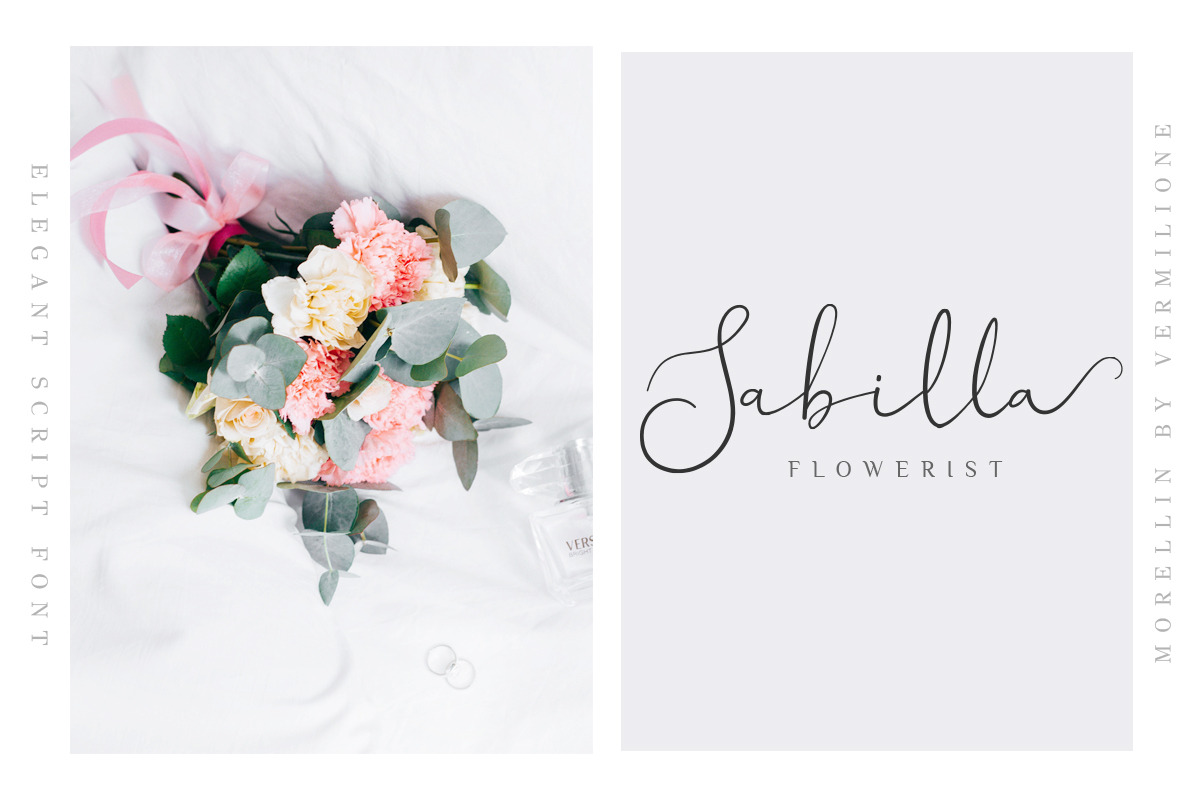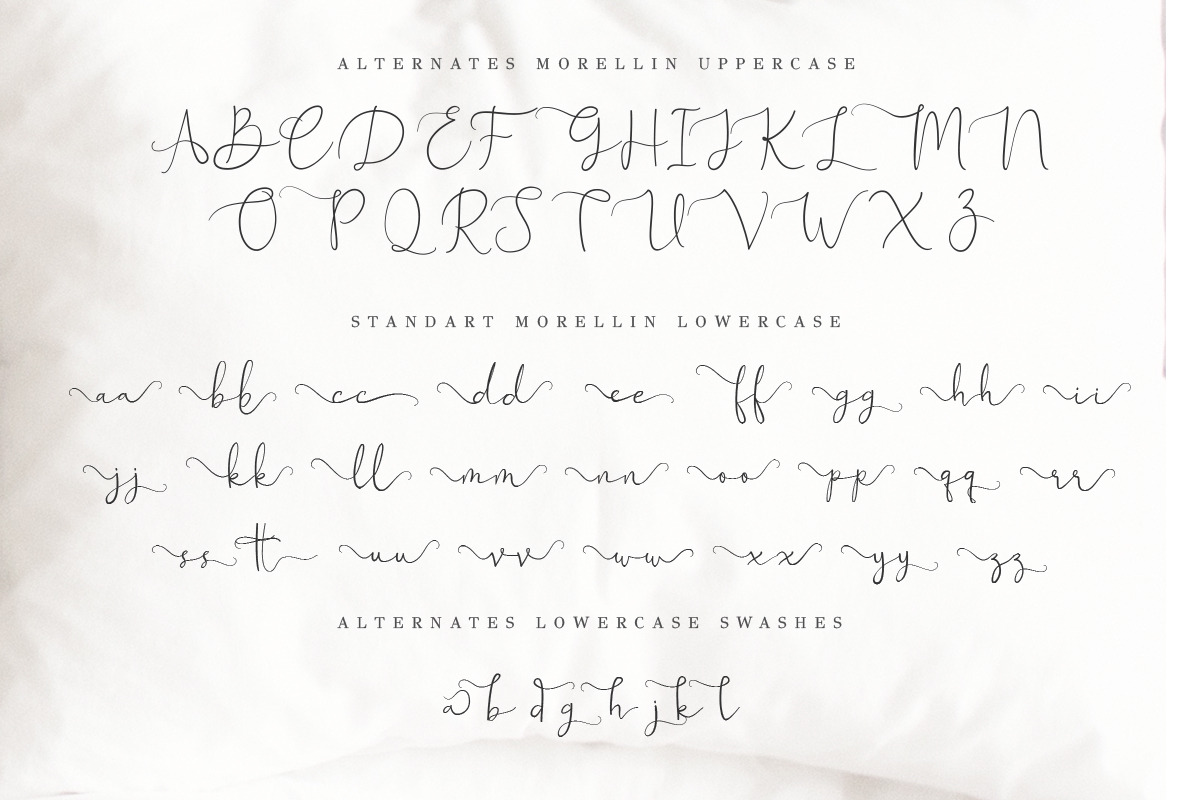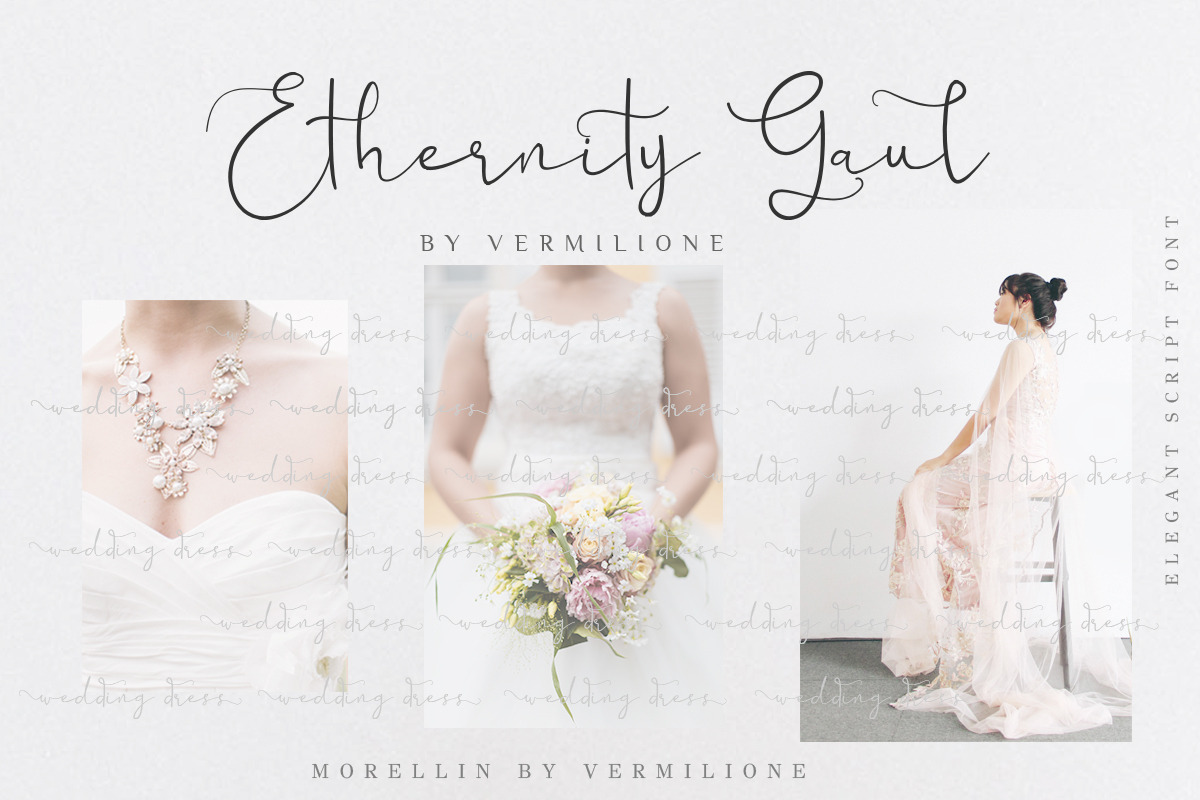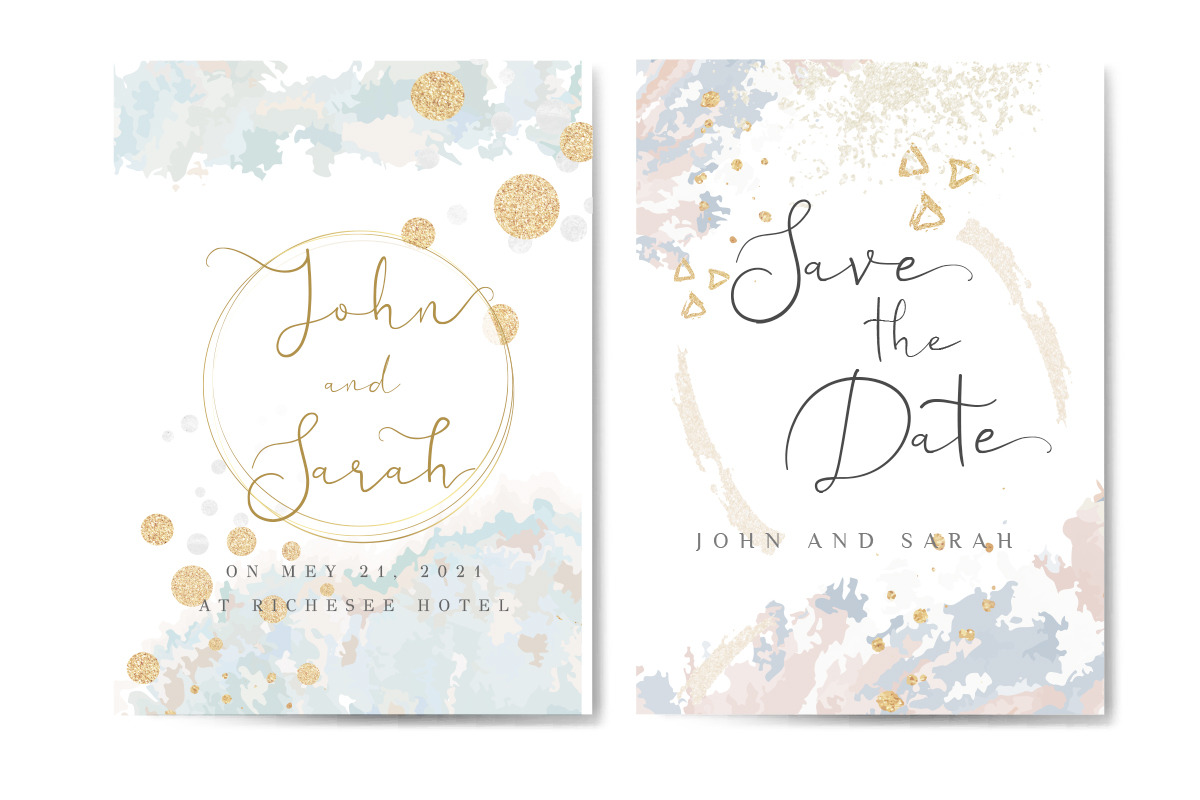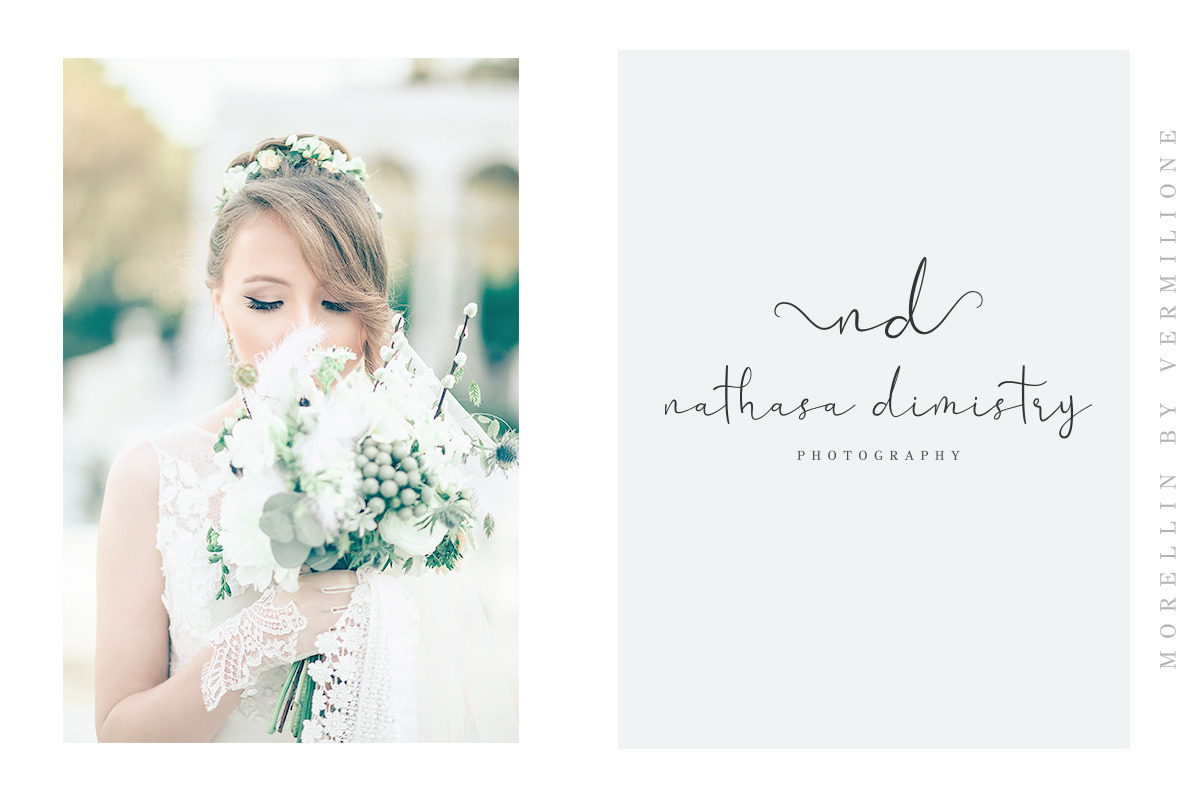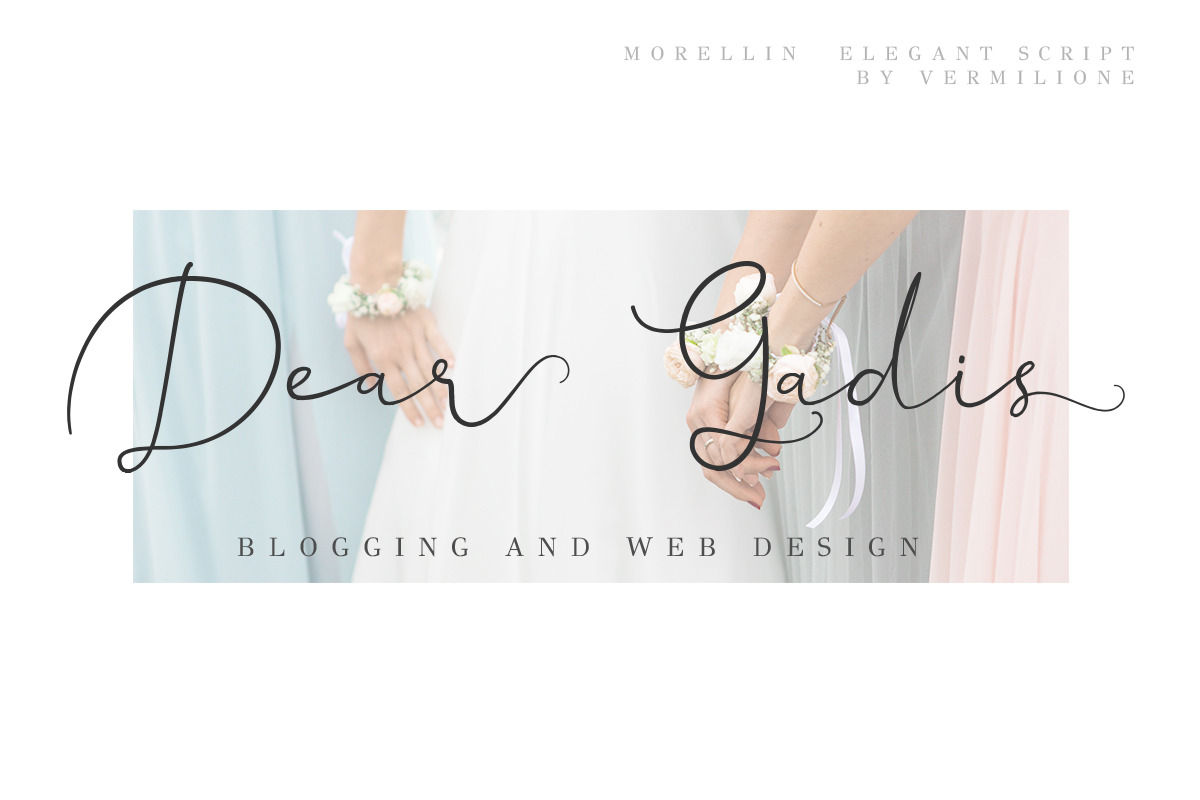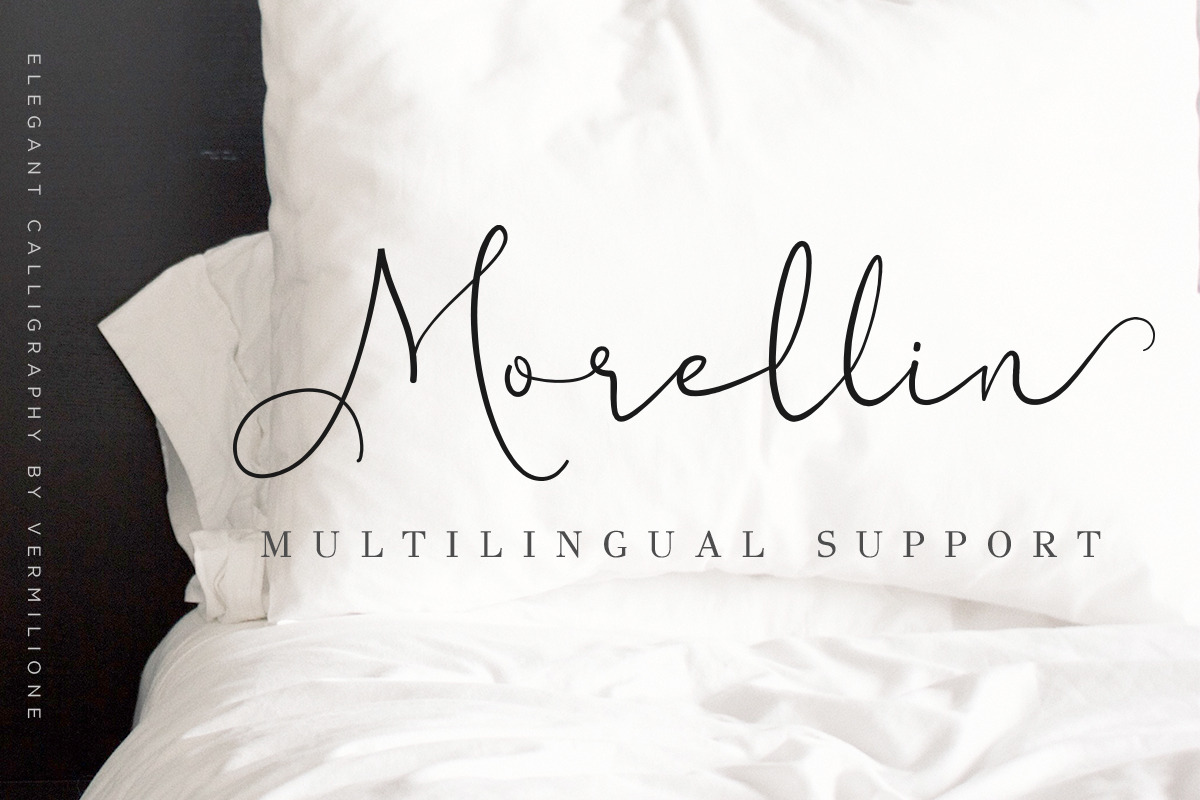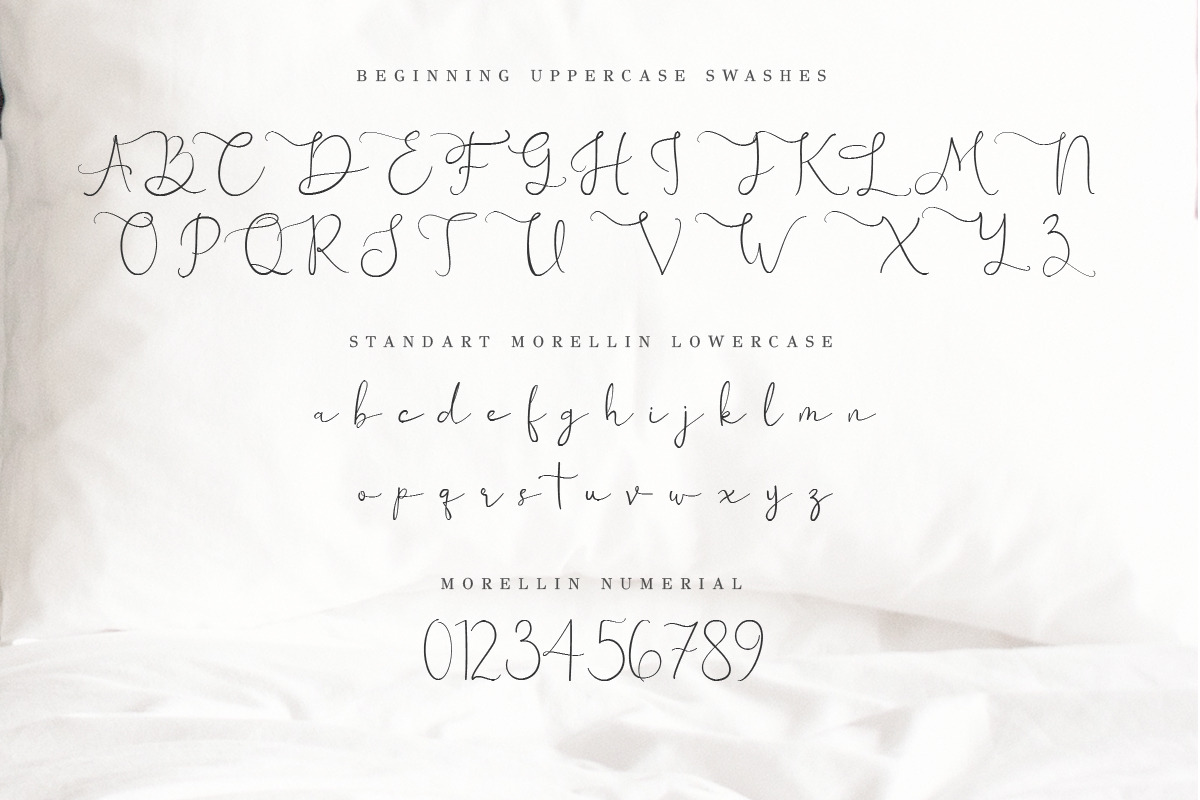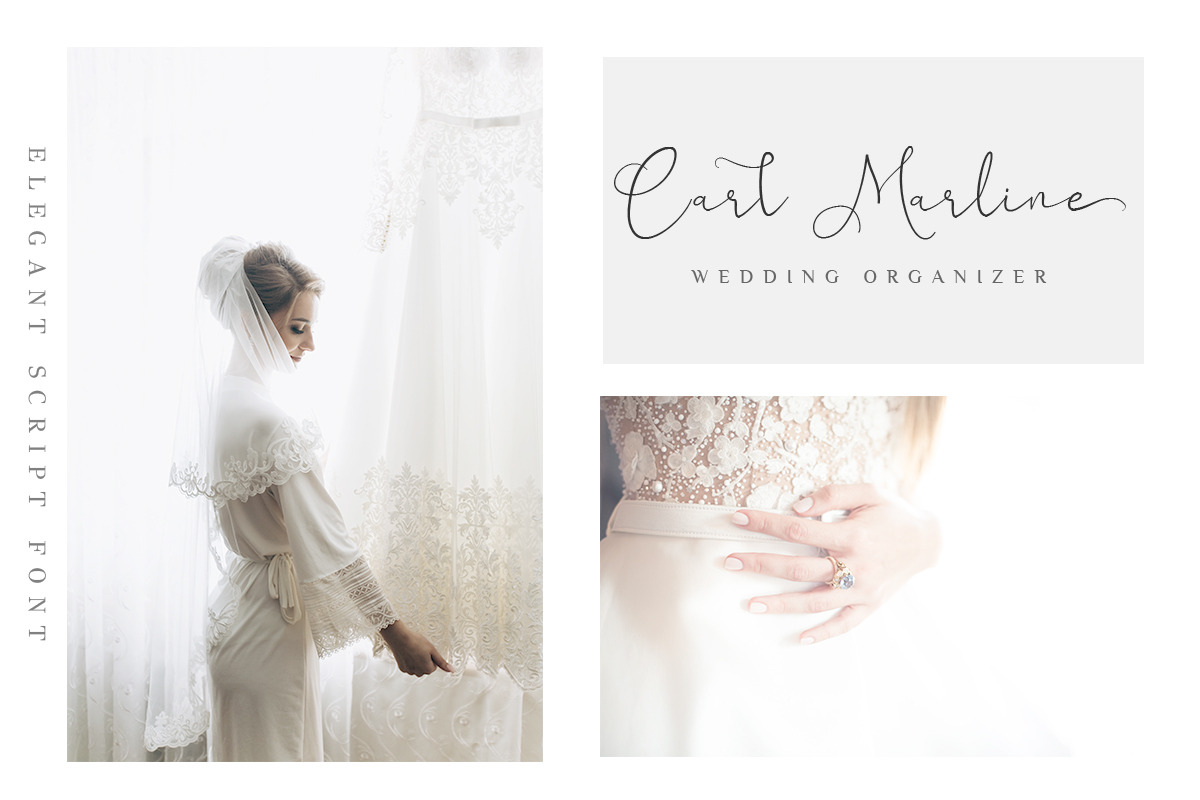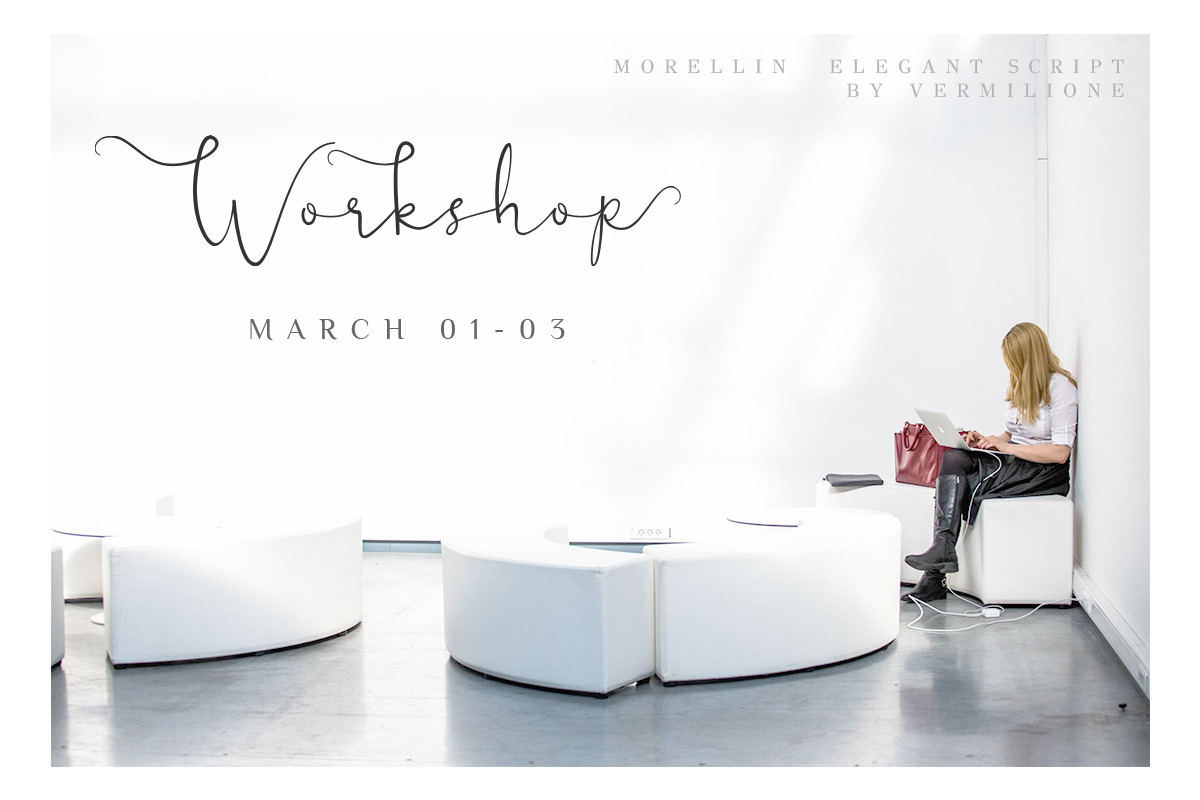
Morellin Elegant Script
Elegant Script Font Morellin
Is a modern calligraphy font with contemporary, sophisticated accents. It is perfect for branding, wedding invites and cards, and maybe for red wine label.
Morellin includes full set of gorgeous uppercase and lowercase letters, numerals, a large range of punctuation and ligatures. And multilingual support.All lowercase letters include beginning and ending swashes, giving realistic hand-lettered style. All uppercase letters include beginning swashes, that makes the font look fabulous!